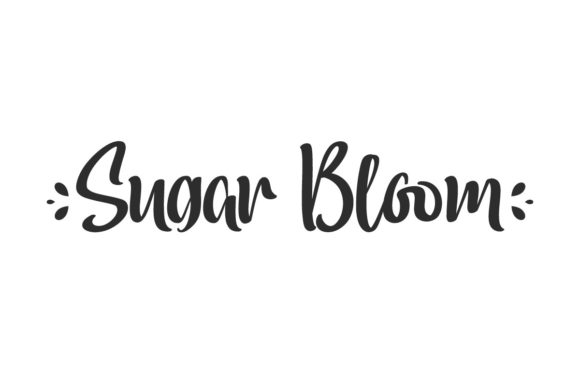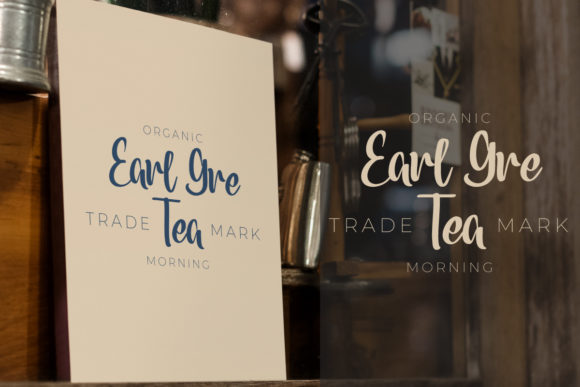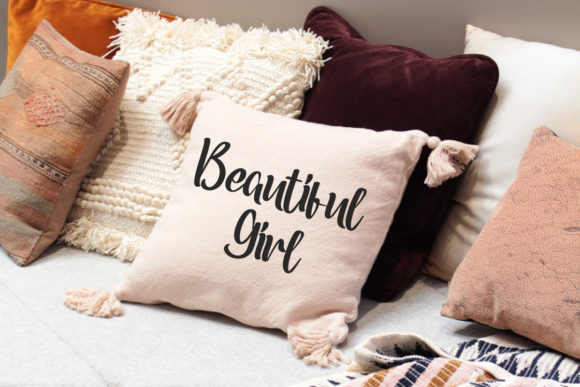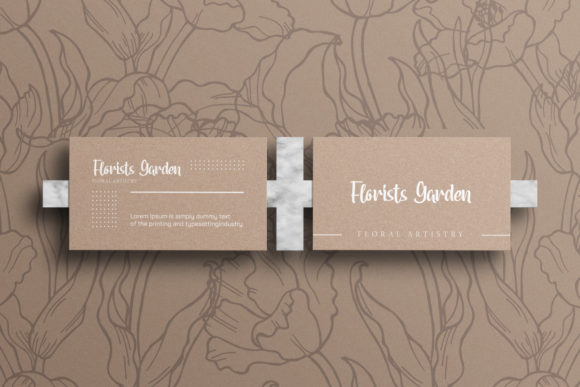
About Sugar Bloom Font
Sugar Bloom is an awesome handwritten font that looks original and charming.
Sugar Bloom is perfect for various projects including branding, logo, stationery, wedding invitation, signage, flyer, video titles, etc. The theme style of the font is unique, natural, beautiful, sporty, gamer, wedding brush style. The font will be a good match for houseware, cosmetics, events, artists, musicians, café, coffee, promotion, etc.